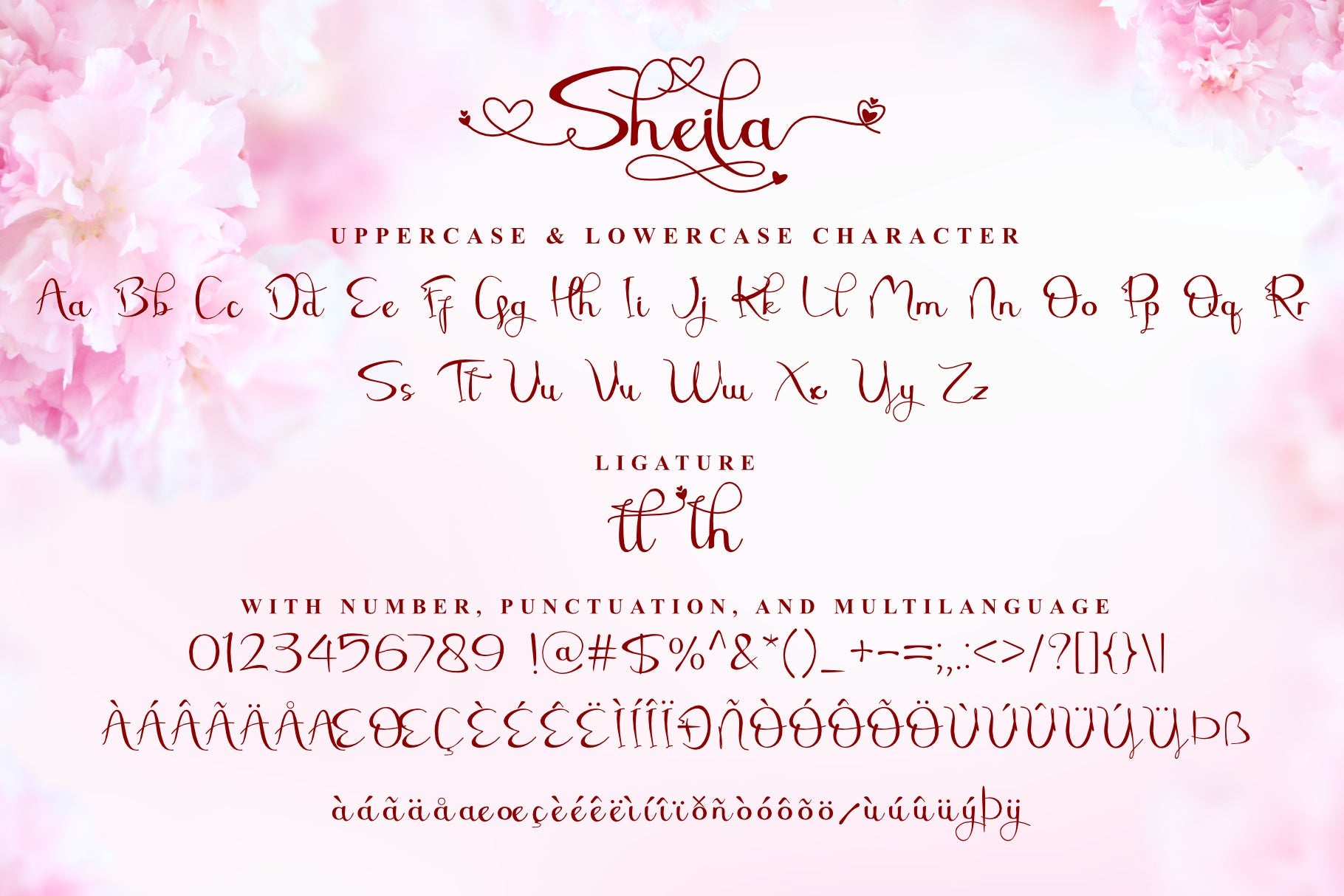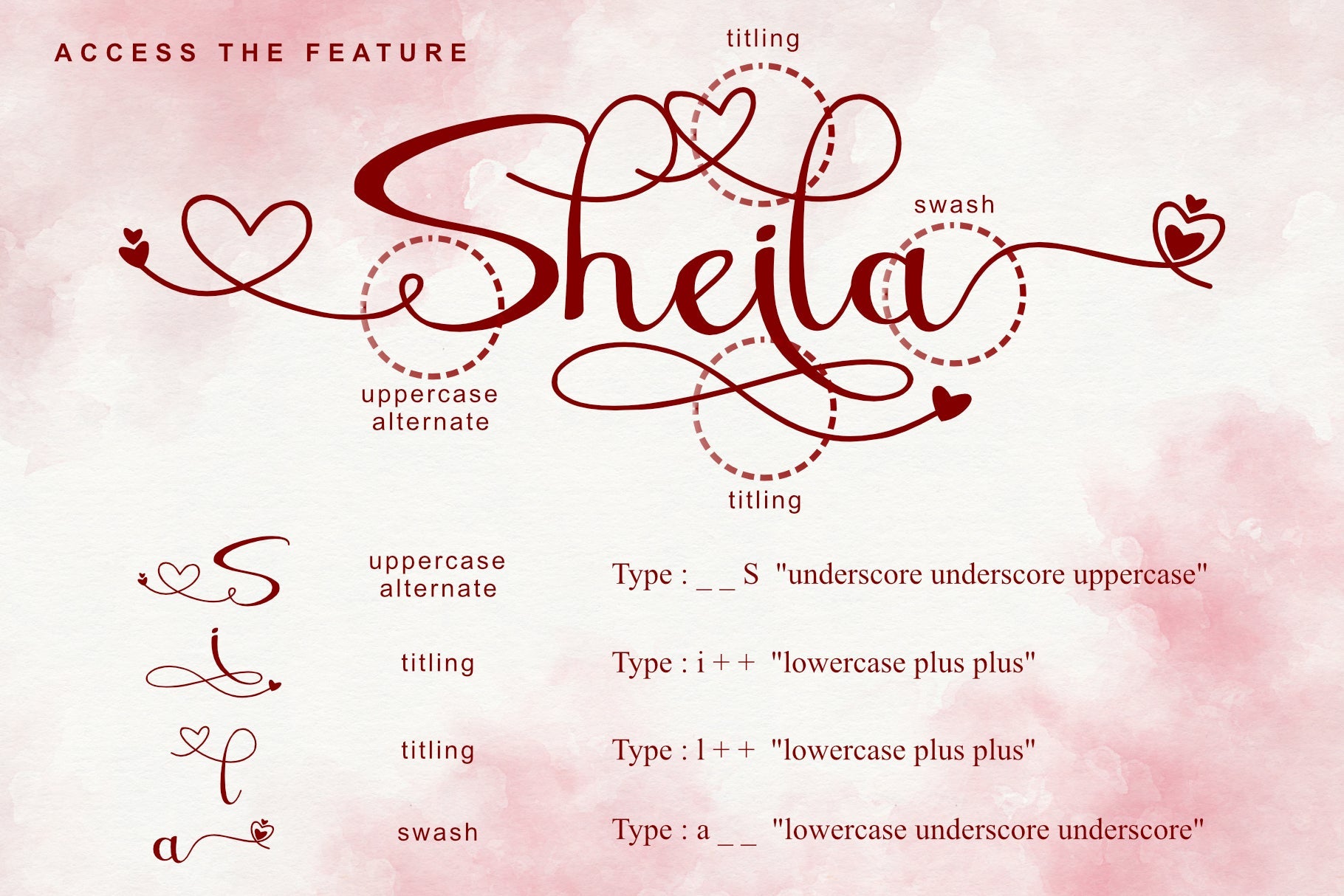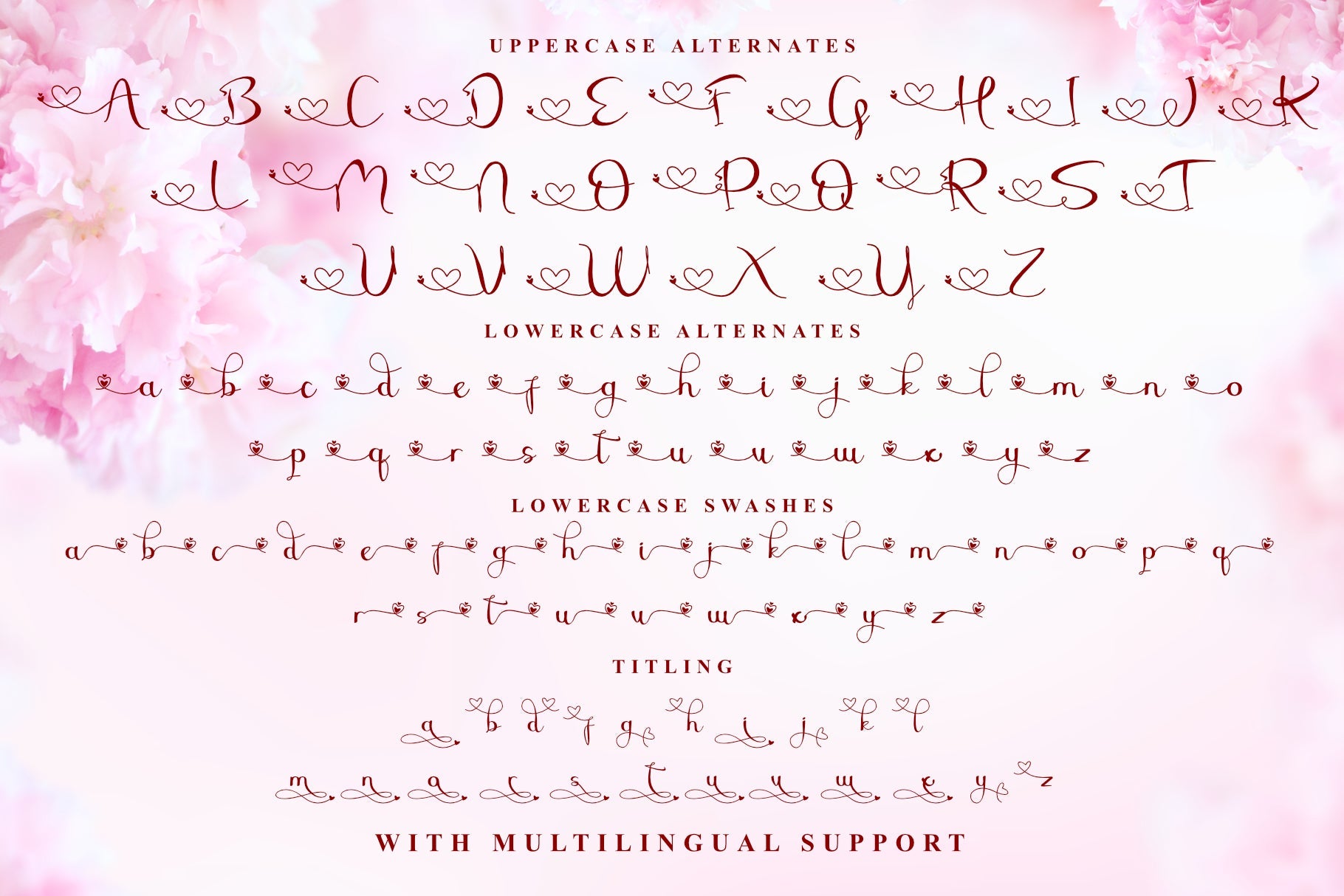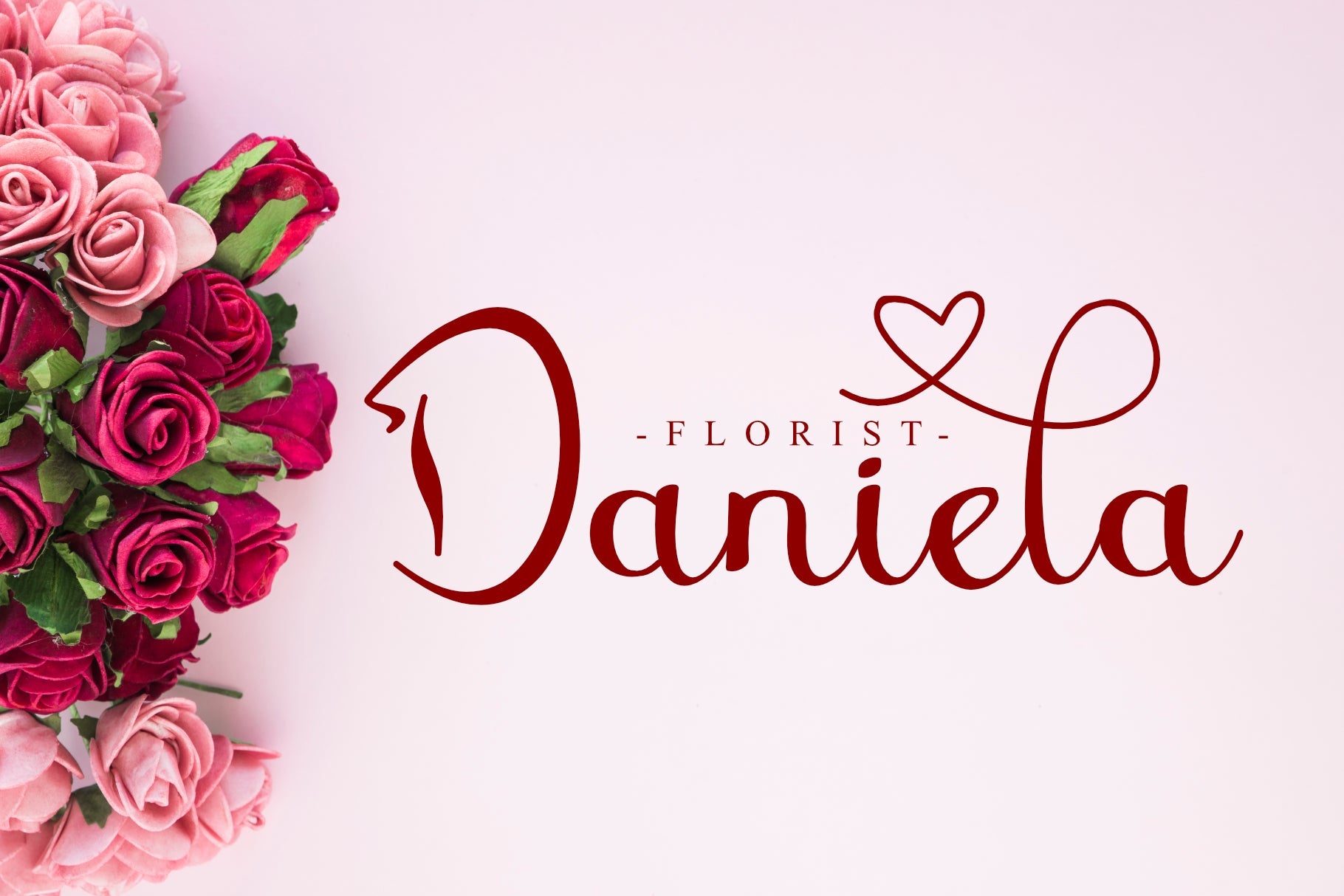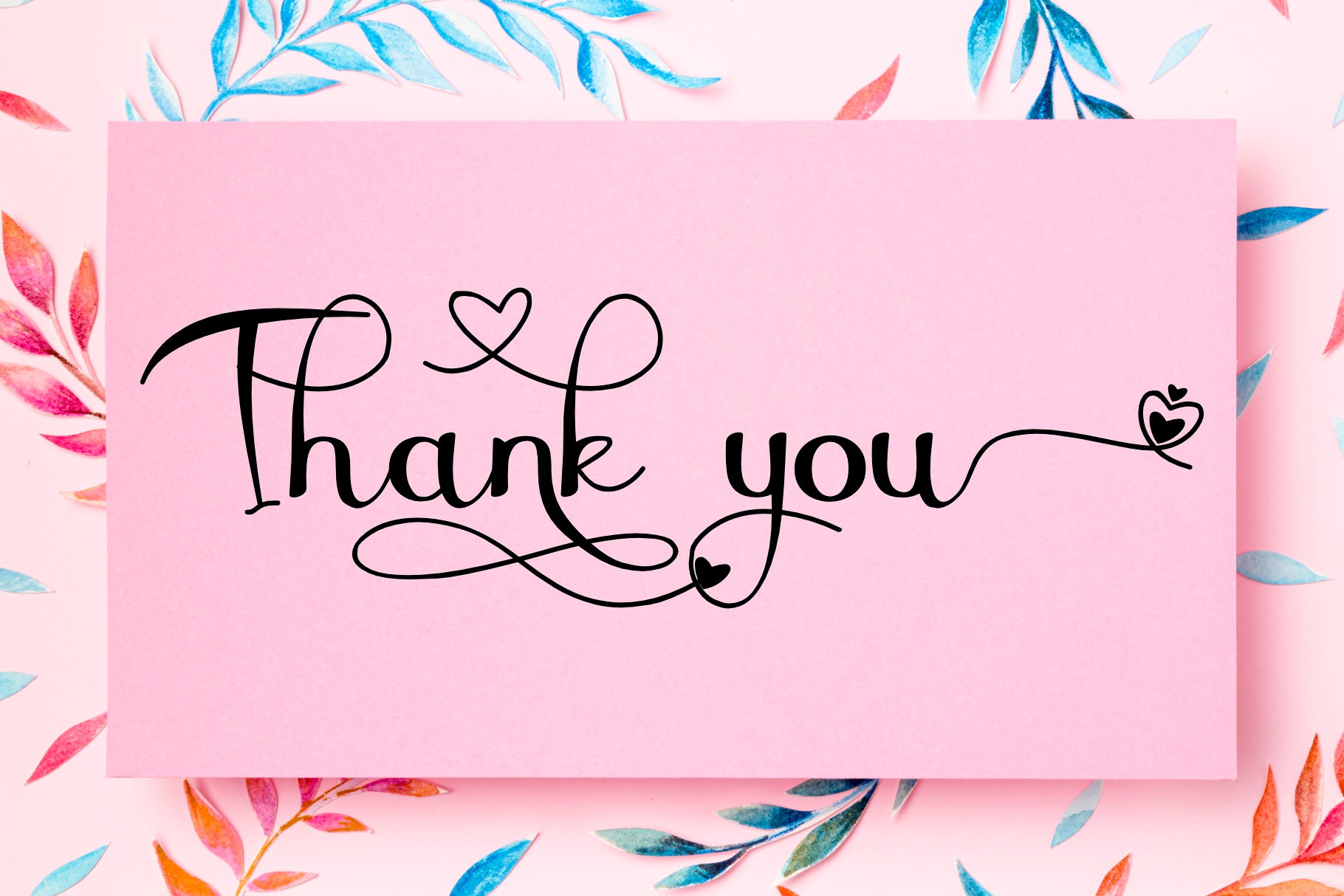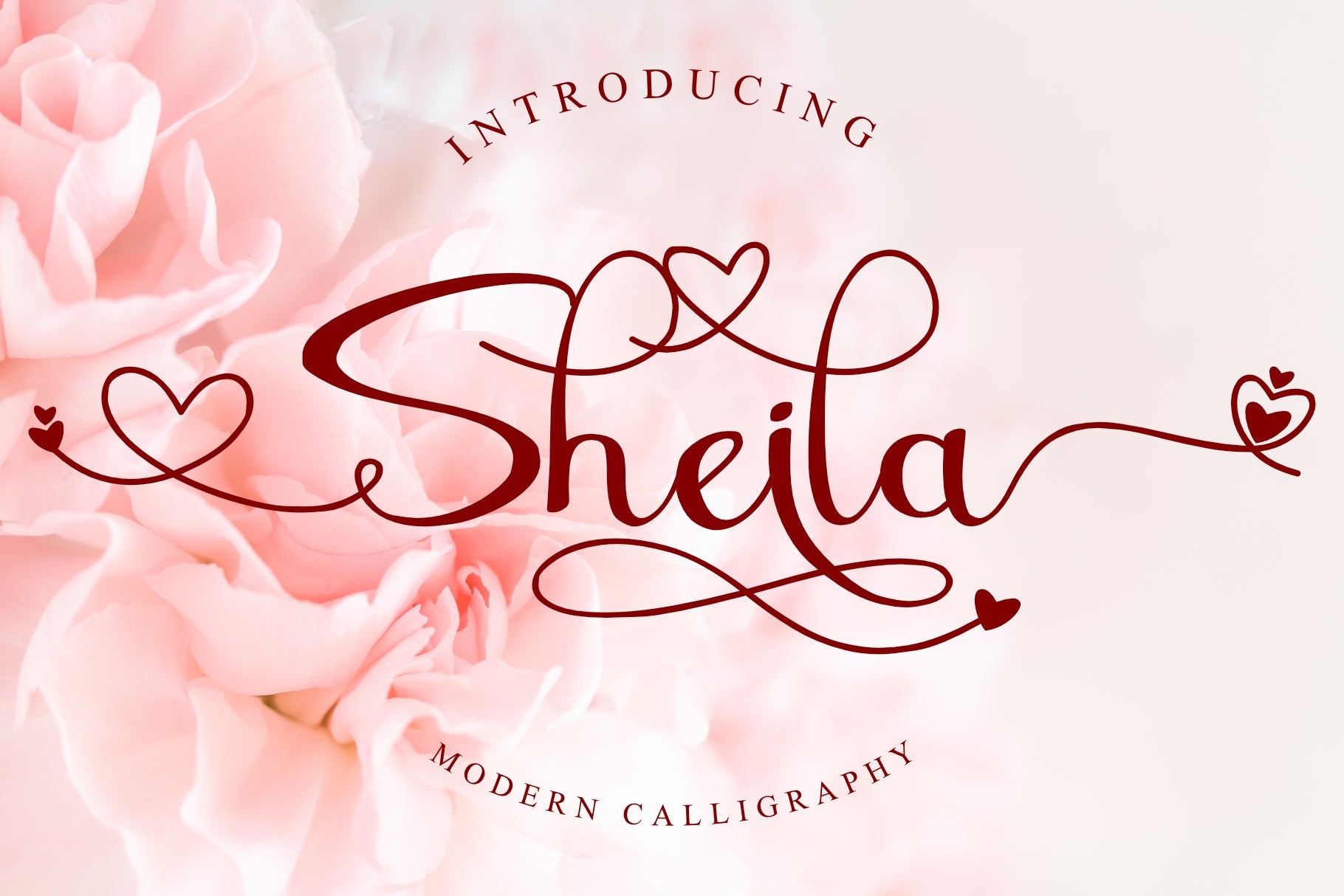
Sheila is a beautiful and romantic script font with multiple heart swashes to suit any of your valentine’s designs! This font is PUA encoded which means you can access all of the available glyphs and swashes with ease!